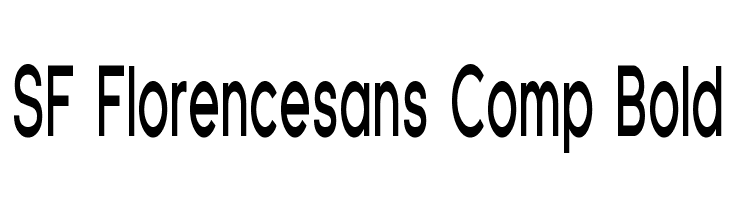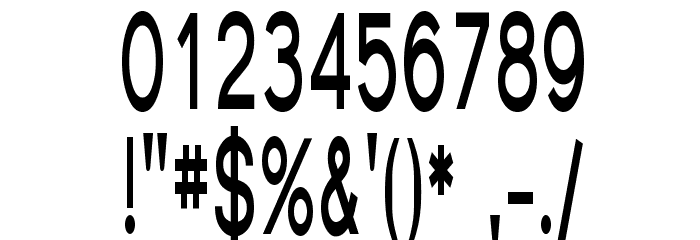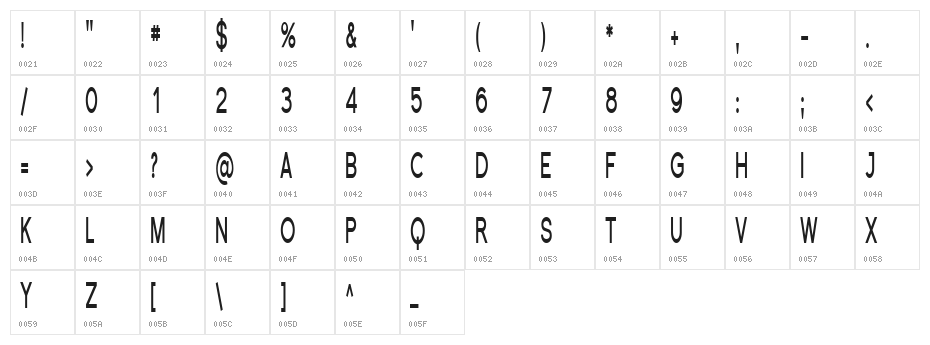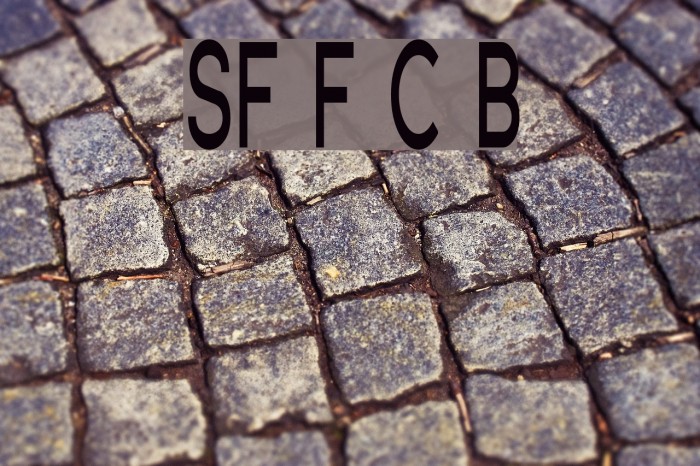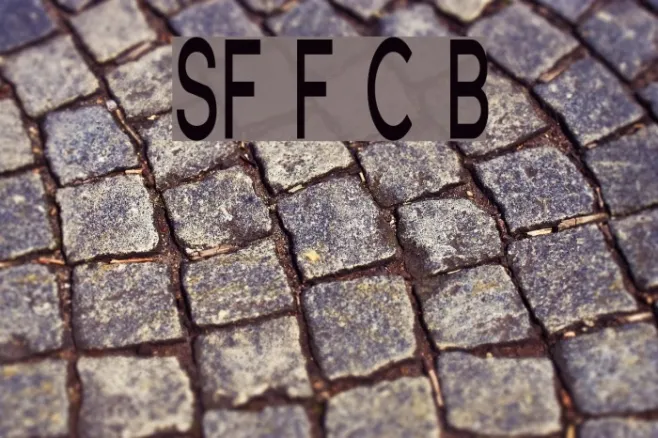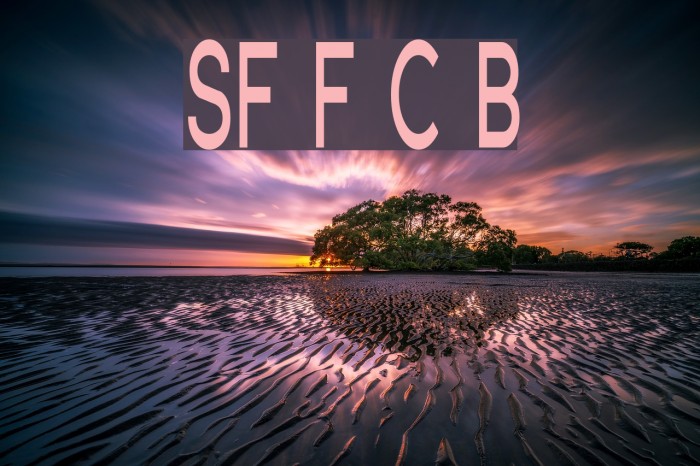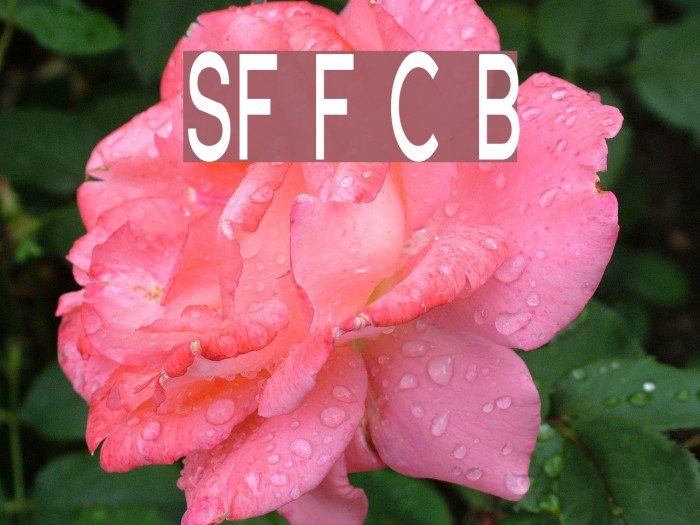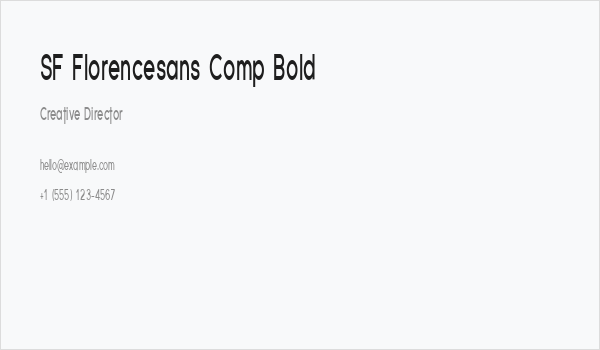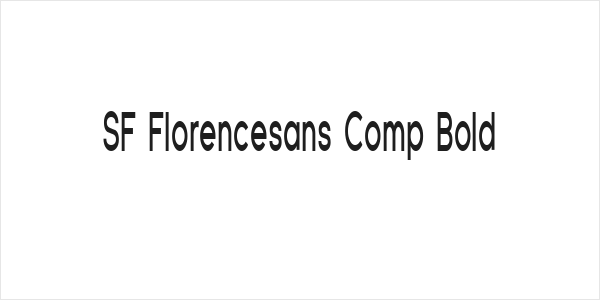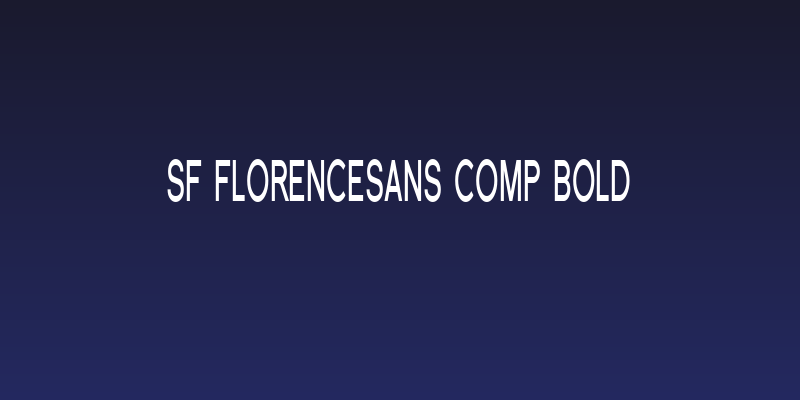
SF Florencesans Comp Bold Font
SF Florencesans Comp Bold Description
This font features a clean and modern sans-serif design with a bold weight, making it highly legible and impactful. The characters are uniformly constructed with a geometric precision that gives a contemporary feel. The uppercase and lowercase letters maintain a consistent height and width, contributing to a balanced appearance. The numerals are clear and distinct, ensuring readability in various contexts. Special characters are well-integrated, providing versatility for different applications. The overall style is sleek and professional, suitable for a wide range of design projects.
| Use Case | Headlines, Logos, Digital Interfaces |
| Proposed Projects | Ideal for branding, advertising, headlines, and digital interfaces where clarity and impact are essential. |